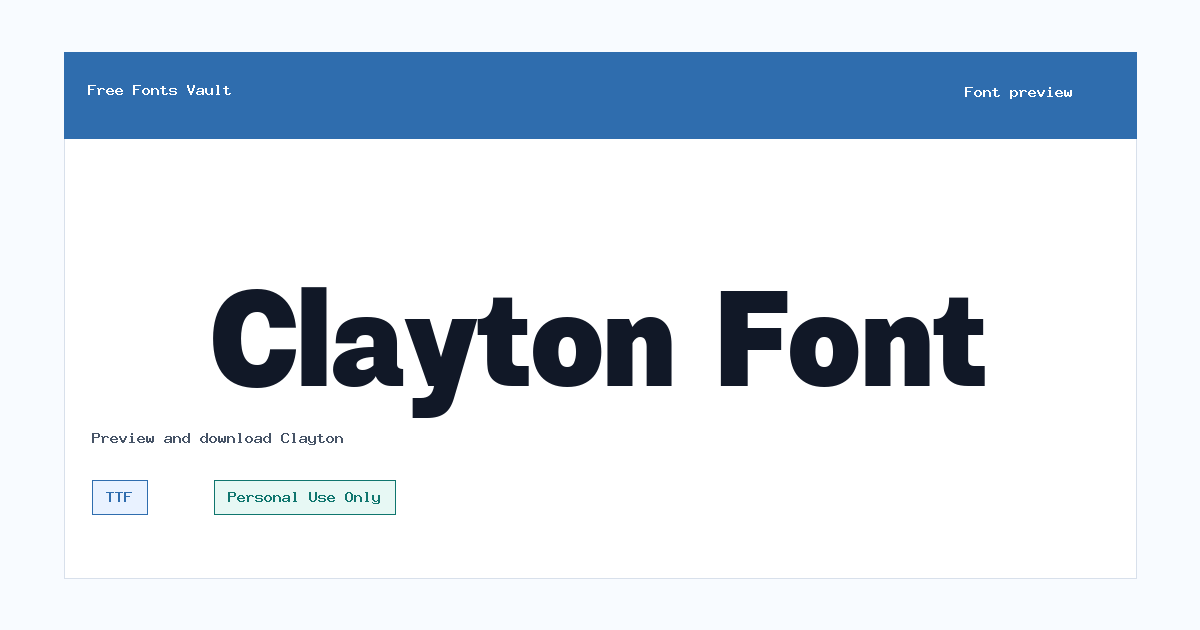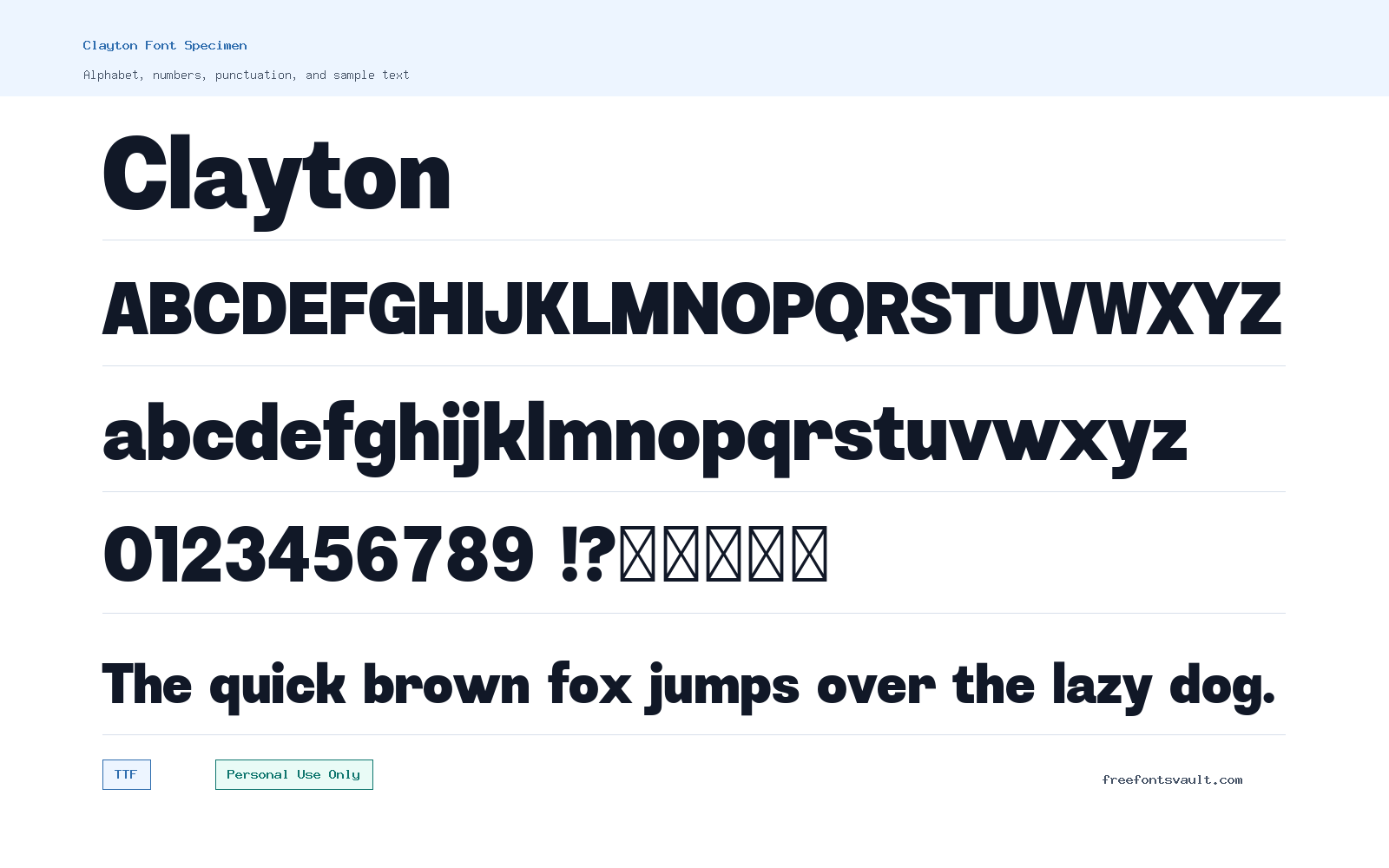
Clayton
Clayton font.
Clayton is a clean sans serif demo font from Glyphonic, offered as a regular-weight TTF for personal-use projects. It has a straightforward look that works best when you need short text to stay clear, simple, and easy to preview before download.
About Clayton Font
Clayton keeps its design direct rather than decorative. The regular style gives you a plain sans serif appearance that can fit headings, simple poster text, social media graphics, nameplates, and quick branding mockups. Because the family currently has one regular TTF style, it is better for focused display use than for long documents or full design systems that need bold, italic, and multiple weights.
- Regular-weight sans serif style with a clean, minimal appearance
- Headings, simple posters, social posts, and short display text
- Personal mockups, nameplates, labels, and early branding concepts
What is Clayton best used for?
Clayton is best for short, simple text such as headings, posters, social graphics, nameplates, labels, and personal design mockups.
Does Clayton include multiple weights or styles?
Only a regular 400-weight normal-style variant is listed, so it does not appear to include bold, italic, or extended family styles in this download.